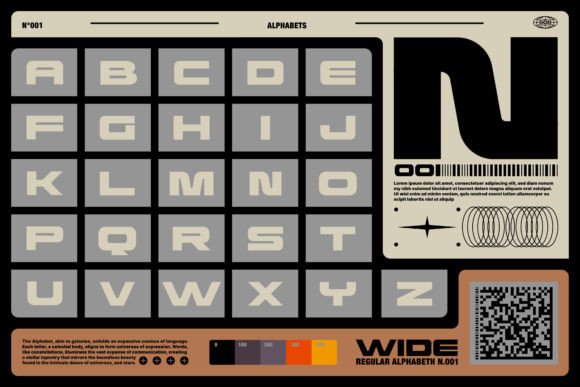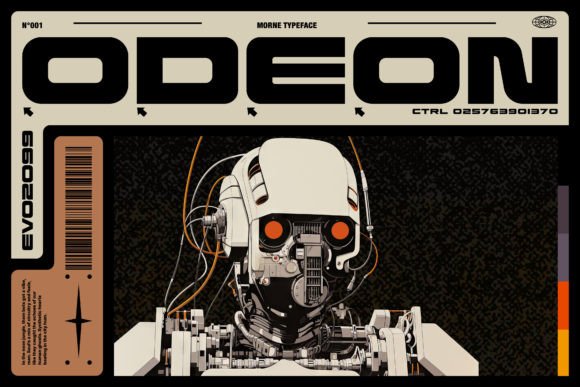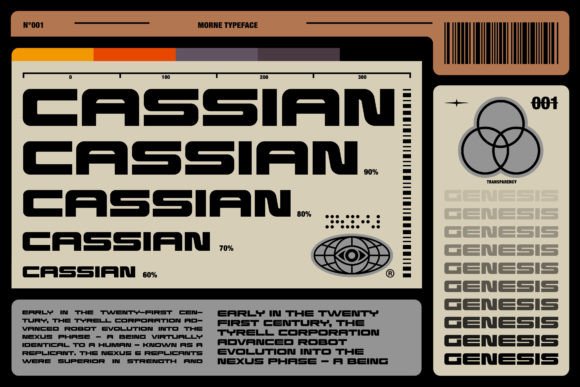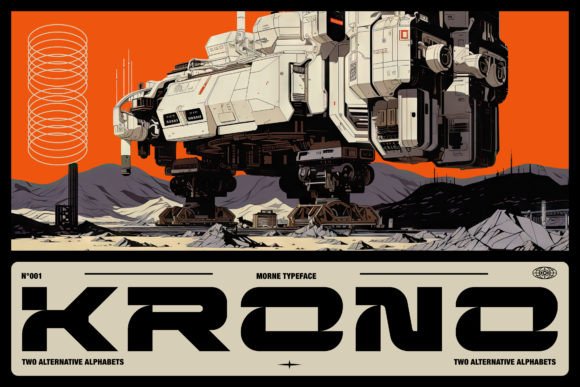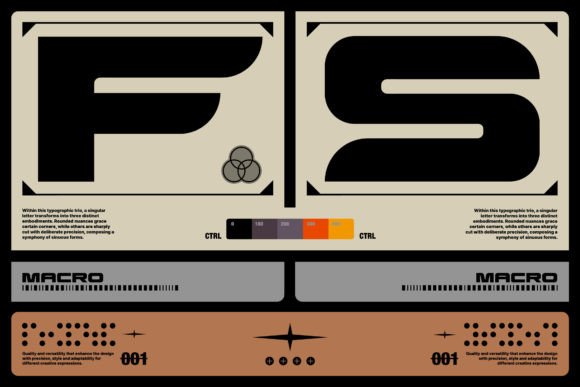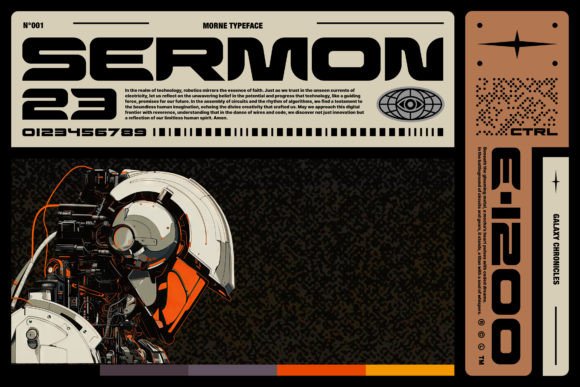
Introduction to Morne Font
Have you ever stared at a blank design canvas, coffee in hand, waiting for that elusive spark of inspiration? It’s a moment we’ve all been there – the one where creativity stalls, and the pressure to deliver mounts. But what if I told you that spark is now within reach? Meet Morne Font, the game-changing addition to your design arsenal.
As a designer, you’re constantly on the lookout for high-quality resources that elevate your creative projects. Morne Font is that elusive gem – a bold, versatile font that brings a level of sophistication to your work. With its transparent background and wide range of alternatives, this font is a must-have for any serious design library. And the best part? It’s available for free download, making it an instant upgrade for your design workflow.
Get ready to take your designs to the next level with Morne Font – a valuable addition to your design resource collection.
Morne Font
- Unique characteristic: Morne Font is designed with a modern, sleek aesthetic, making it perfect for contemporary design projects
Honest Review: Morne Font
As a designer, I’m always on the lookout for high-quality design resources to elevate my creative projects. Morne Font is one of those gems that I’ve recently stumbled upon, and I’m excited to share my honest review with you.
What works well: ✨ The font has a sleek and modern design, perfect for projects that require a clean and minimalist aesthetic. It’s also incredibly versatile, making it suitable for a wide range of creative projects, from logos to brochures.
What works well: ✨ The font comes with a transparent background, which makes it easy to use on top of any image or color without worrying about background noise. This feature is a game-changer for designers who value simplicity and flexibility.
Limitations: ⚠️ While Morne Font is an excellent addition to any designer’s toolkit, it may not be suitable for projects that require a more bold or playful font. Additionally, the font may not be as customizable as some other fonts on the market.
Overall, I’m thoroughly impressed with Morne Font. Its high-quality design, versatility, and transparent background make it a must-have for any designer looking to elevate their creative projects.
- High-quality design suitable for modern and minimalist projects
- Transparent background for easy use on top of images or colors
- May not be suitable for bold or playful projects
- May not be as customizable as other fonts on the market
Morne Font
Tips for Getting the Most Out of Morne Font
To get the most out of Morne Font, use it with a transparent background to give your designs a clean and modern look. You can also experiment with different font sizes and styles to create a unique and eye-catching design.
The Morne Font is perfect for creating professional-looking designs for your business, such as logos, brochures, and marketing materials. It’s also great for personal projects, like creating a wedding invitation or a birthday card.